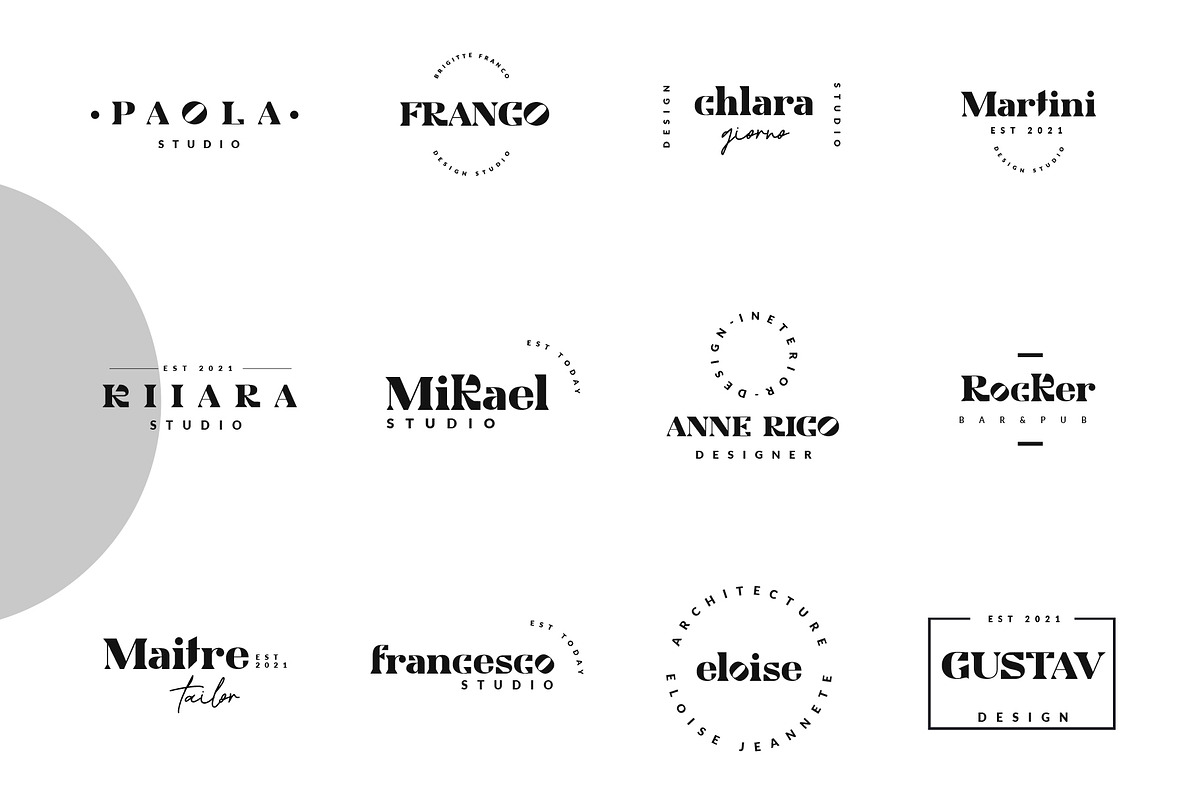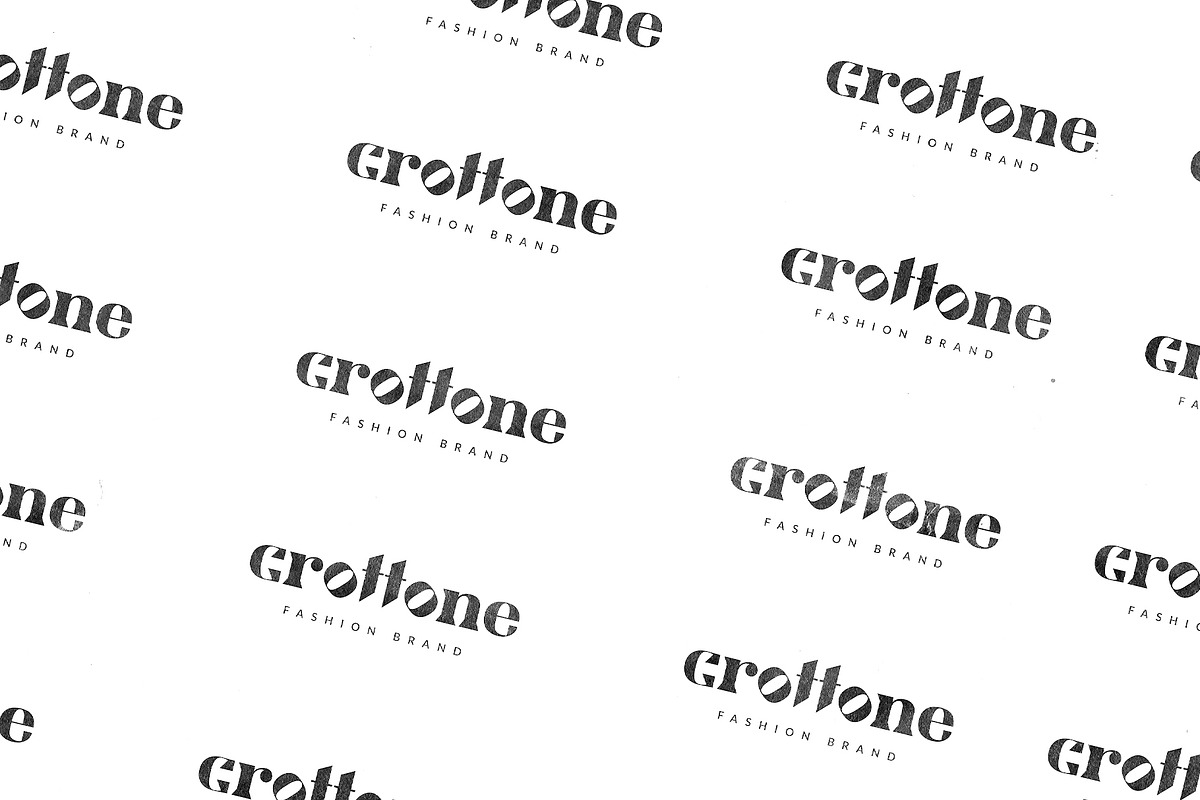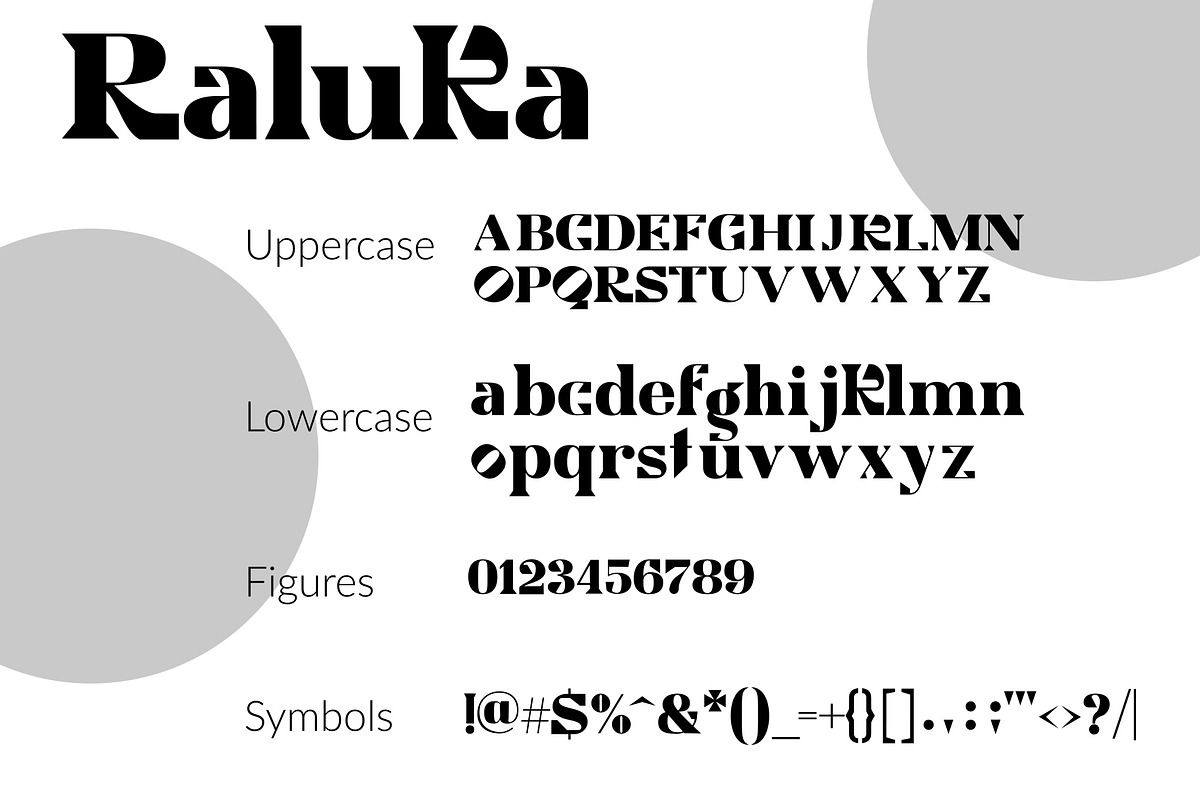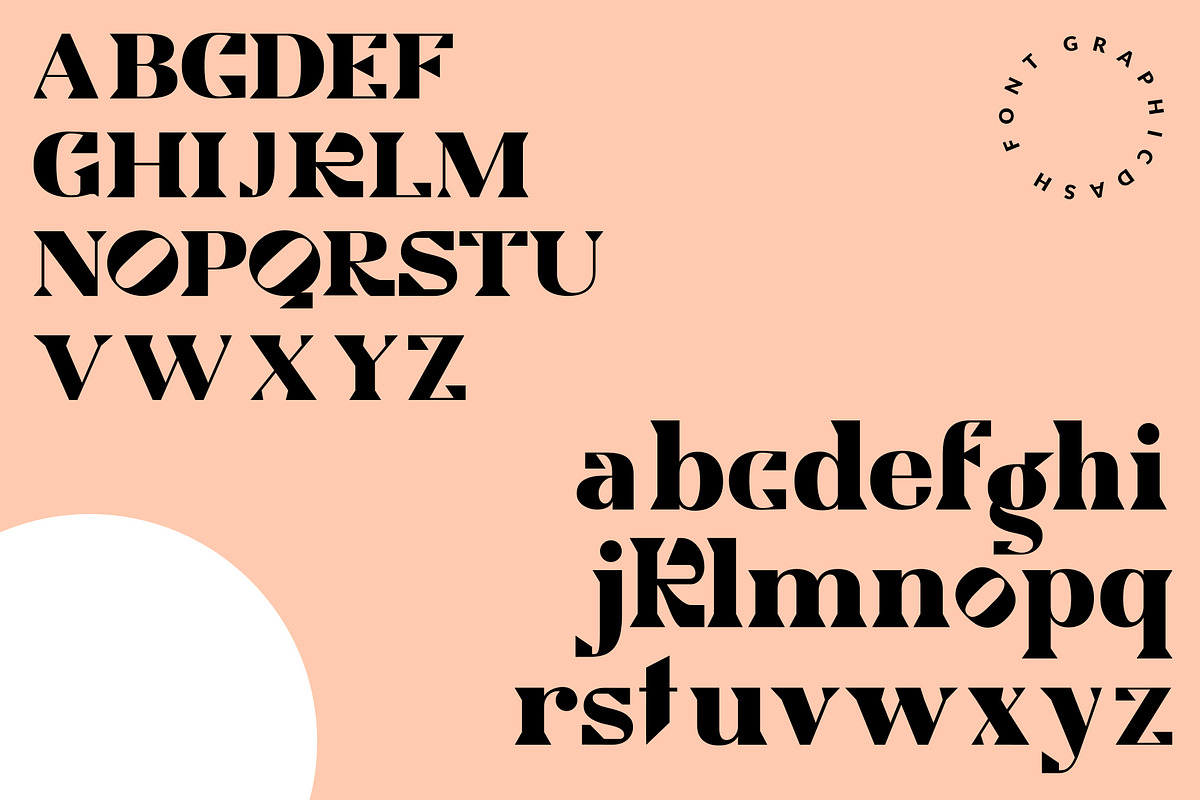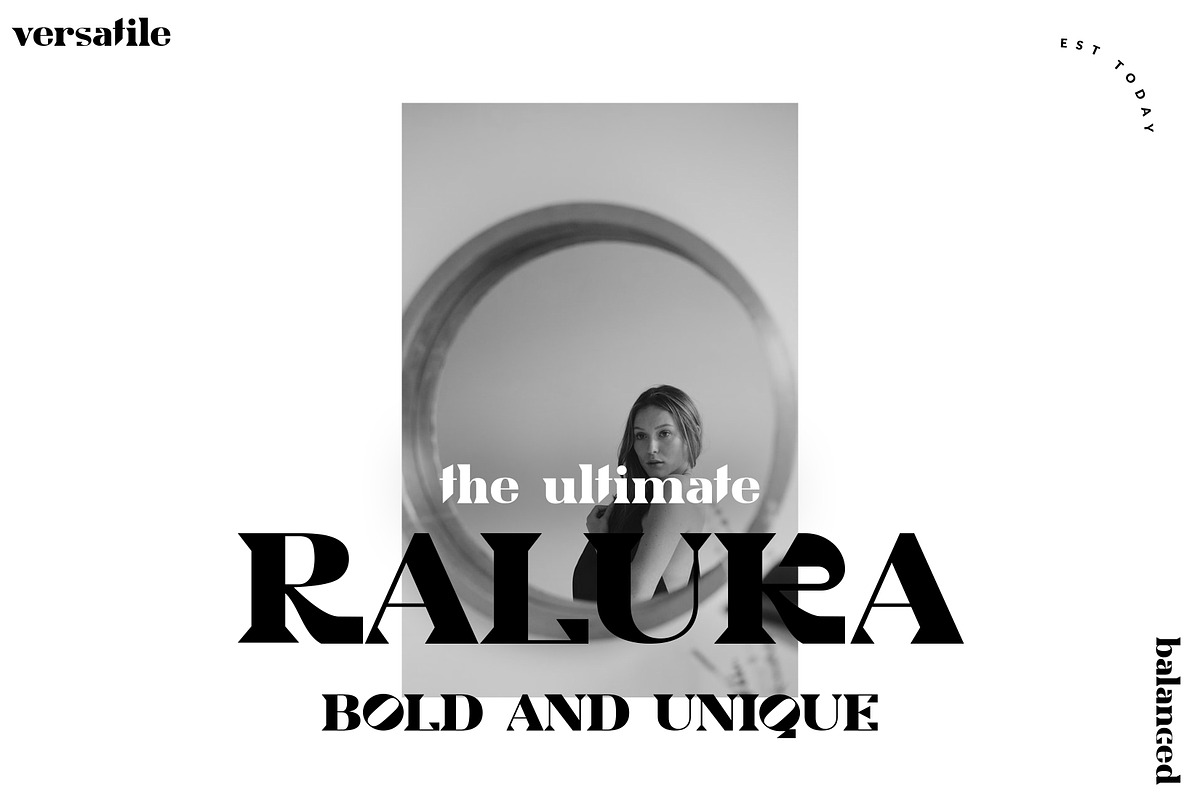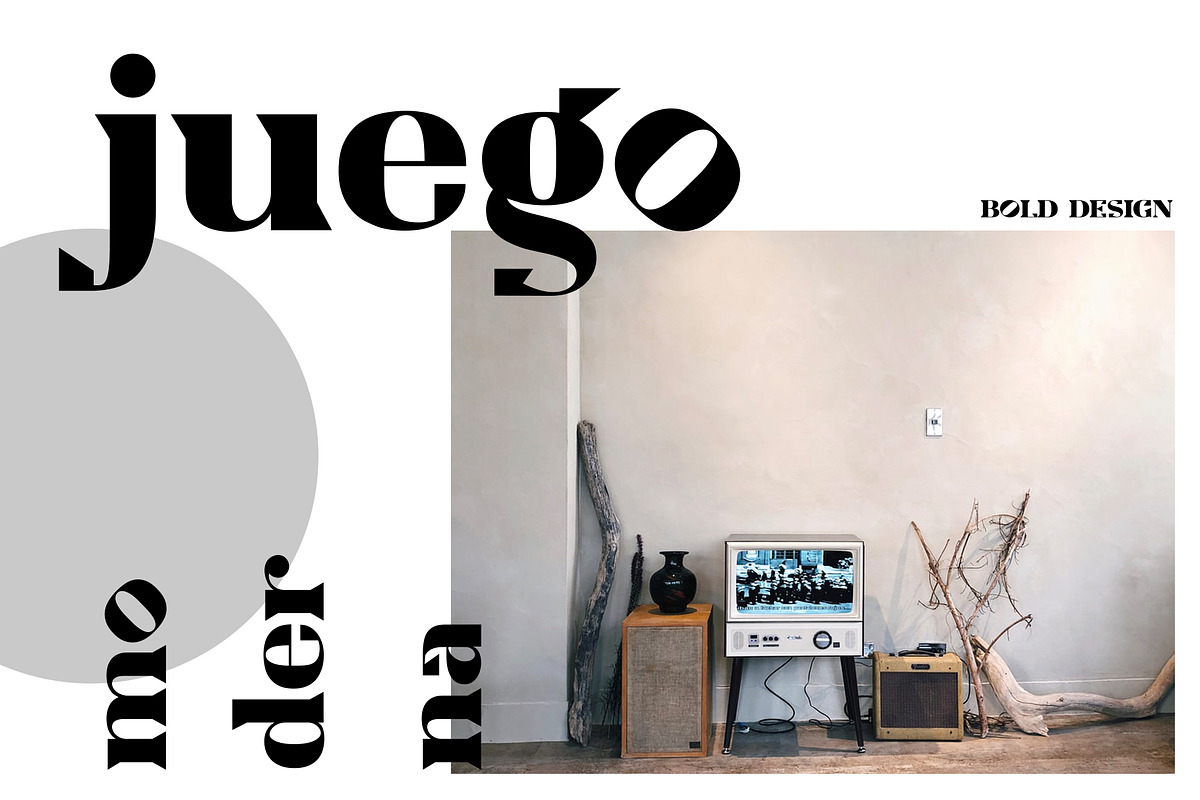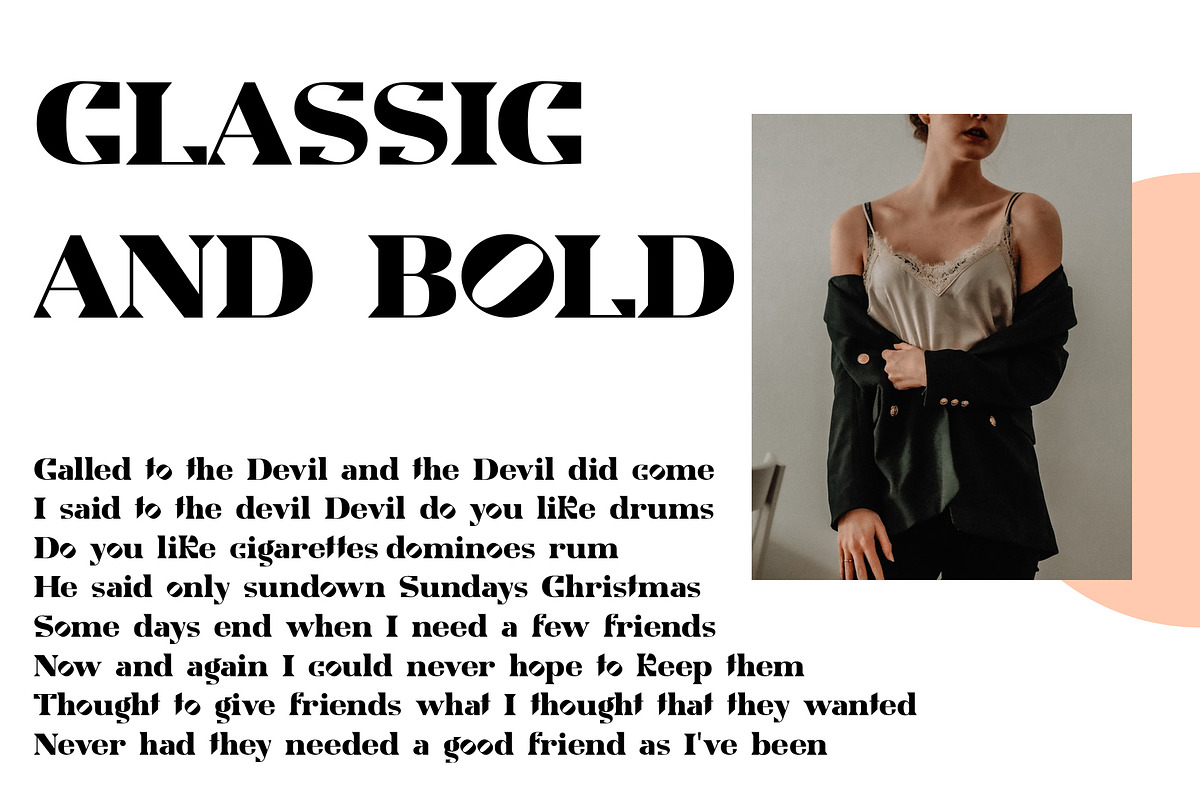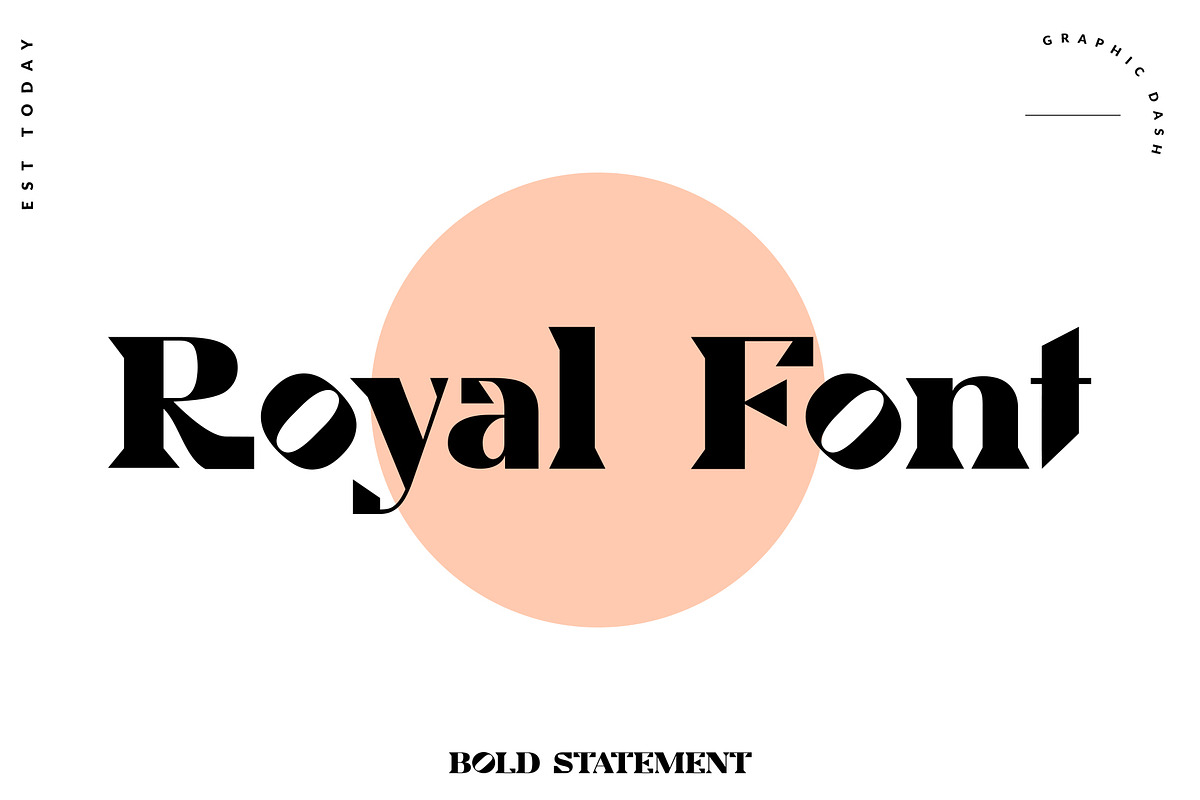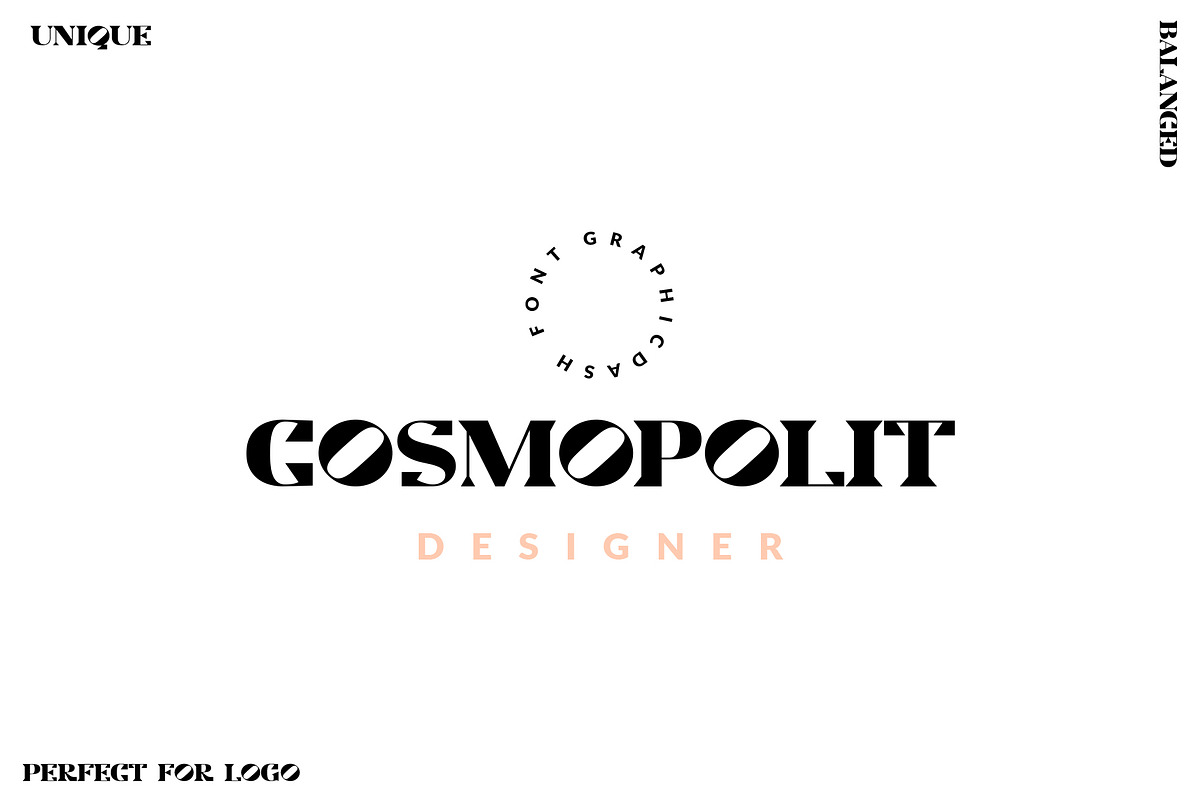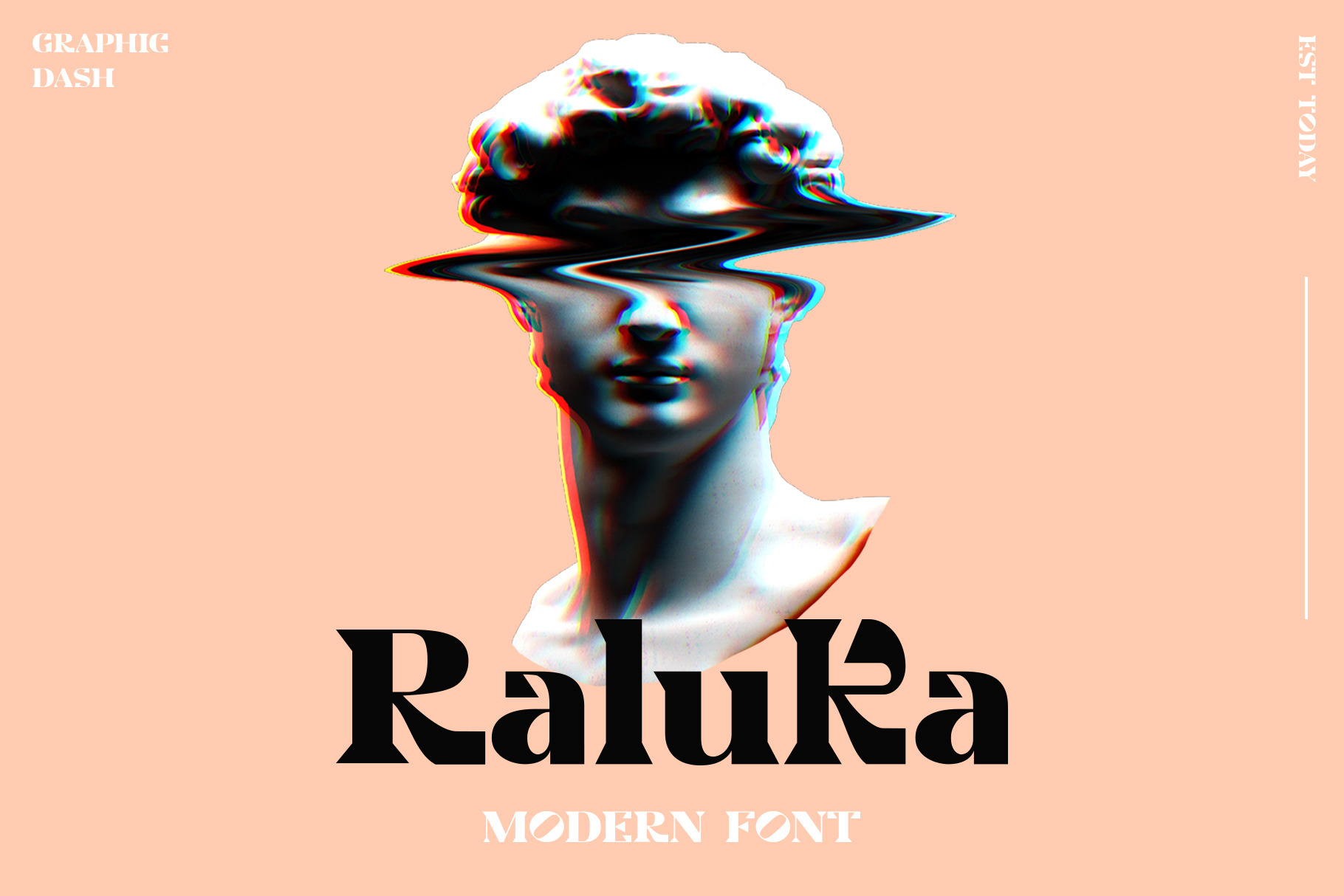
Raluka - Modern Font + Bonus
Raluka - Modern Bold Font + Bonus
Raluka is a versatile, modern, and elegant font. It has a unique and bold style.
Create unique & beautiful logotype, use it as an elegant solution for your next magazine layout, or choose Raluka for any graphics that require a sleek look with an Modern flair.
- Uppercase/lowercase, numbers & punctuation.